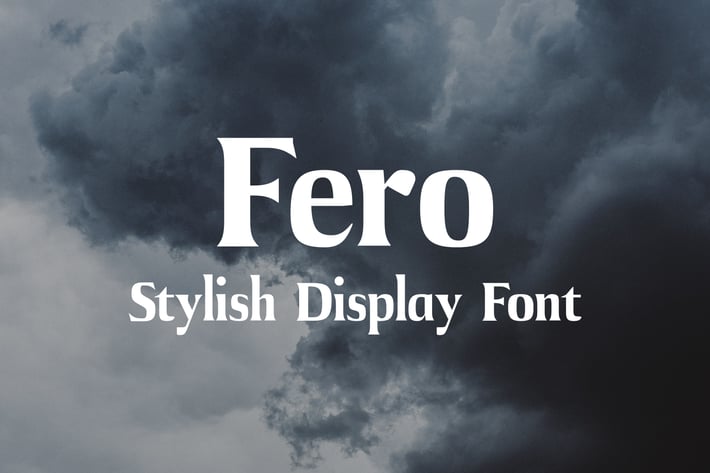
Fero Display Font
Introducing Fero, a new, modern display font. It creates a beautiful atmosphere to your design and feels playful. Make your branding shine, create atmosphere to present your product, connect with audience with an unique touch. Fero display font is created to boost your branding performance and engagement along with some secret sauce cooked at our studio.
-> Total 208 Glyphs
-> A-Z Standard Capital Letters
-> a-z Standard Smaller Letters
-> 0-9 Numerals
-> Standard Punctuations (PUA)
-> Multilingual Characters